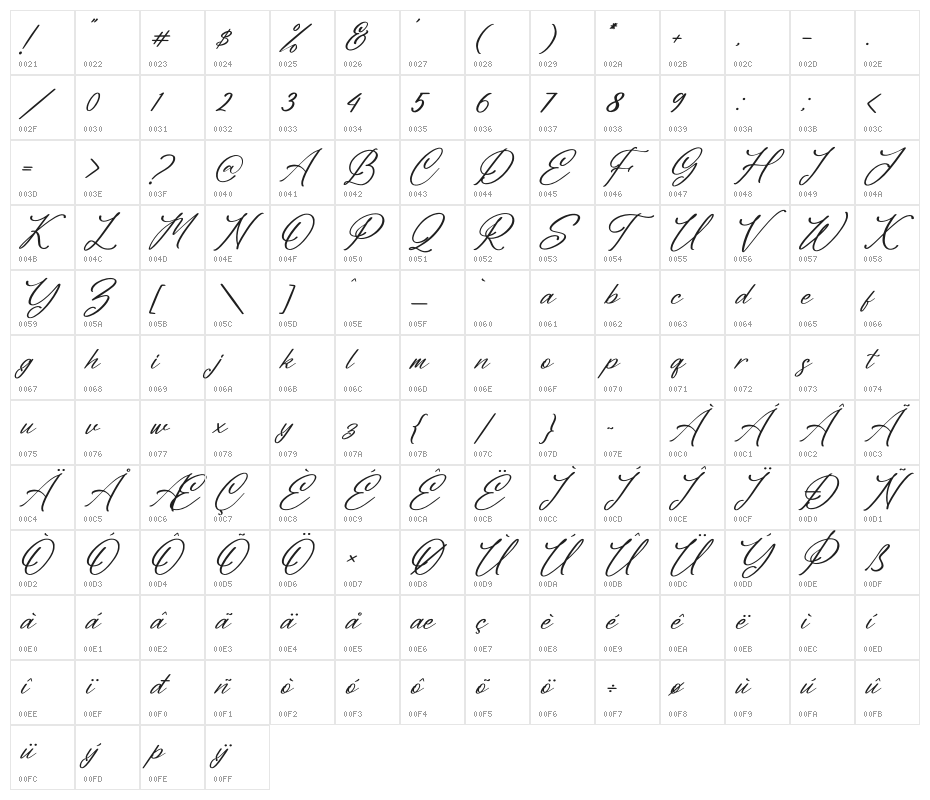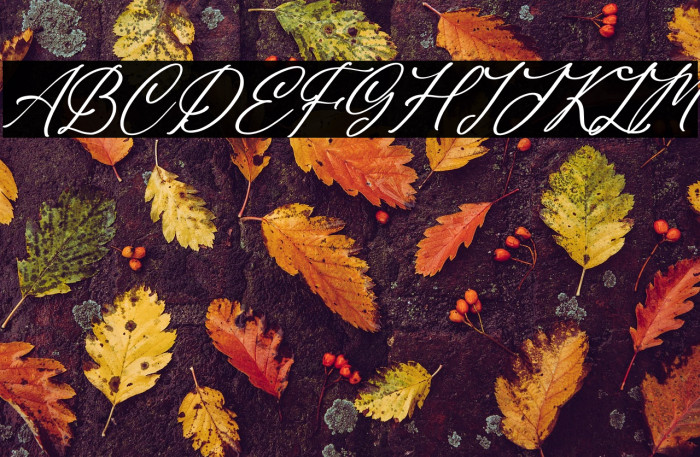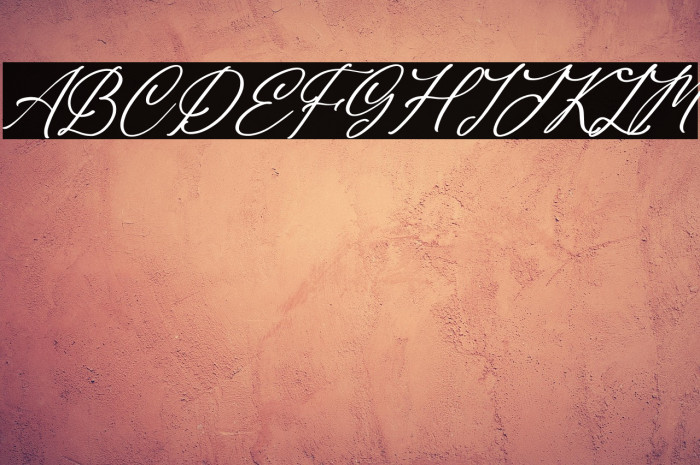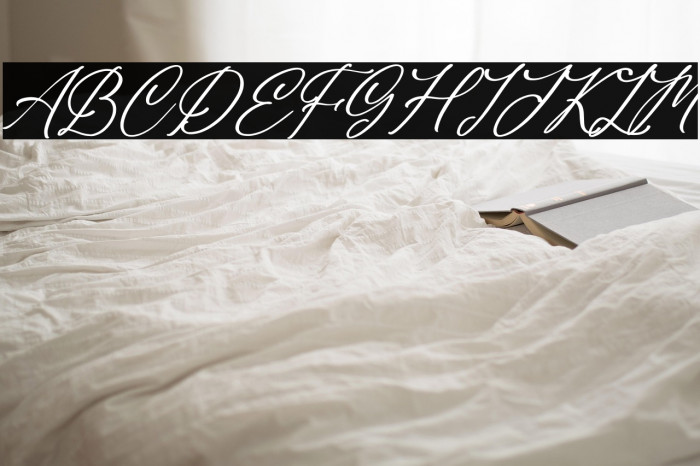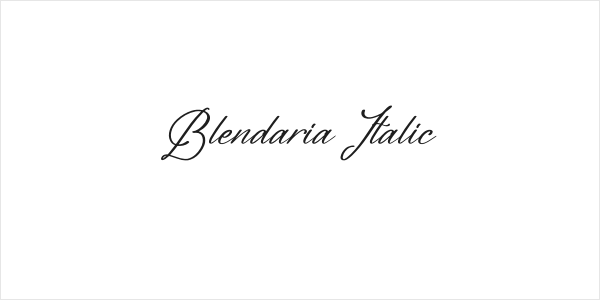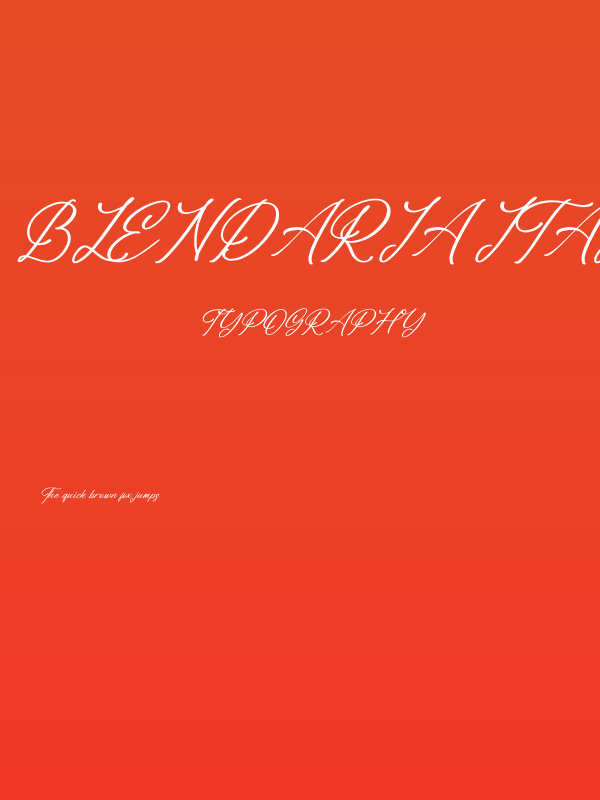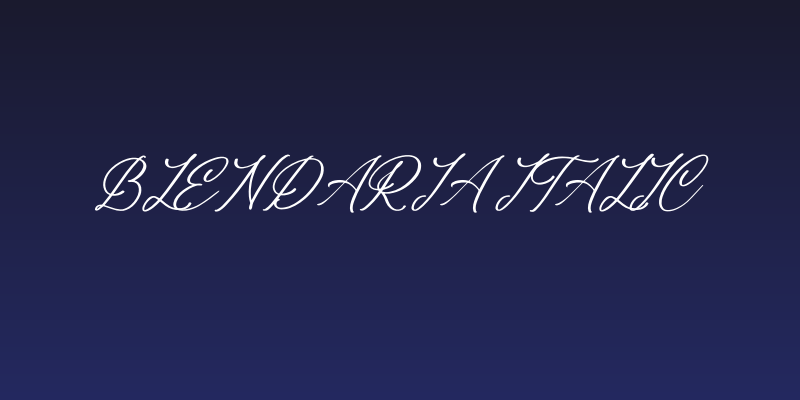
Blendaria Italic Font
Blendaria Italic Description
This font exudes elegance and fluidity, characterized by its cursive, flowing script style. The letters are interconnected, creating a seamless and sophisticated appearance. The uppercase letters are slightly more embellished, with graceful loops and swirls, while the lowercase letters maintain a consistent, smooth flow. The numerals and special characters are designed to match the overall aesthetic, ensuring a cohesive look across all text. The italic nature of the font adds a dynamic and stylish touch, making it suitable for formal invitations, branding, and decorative purposes.
| Proposed Projects | Ideal for wedding invitations, luxury branding, greeting cards, and decorative headings. |